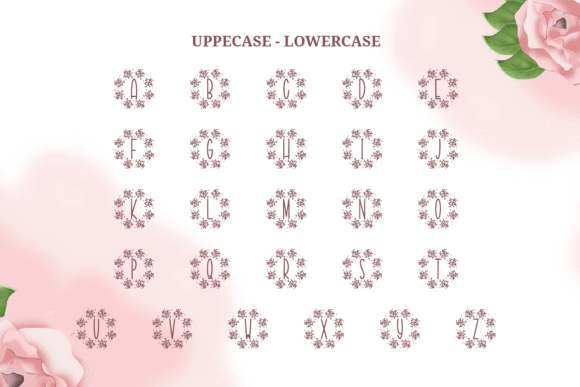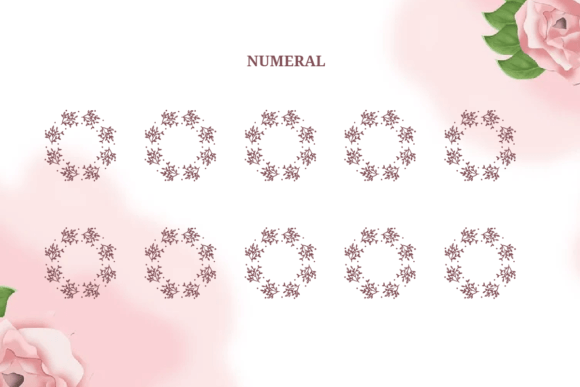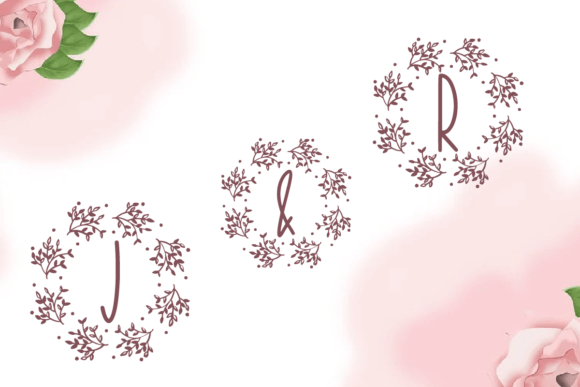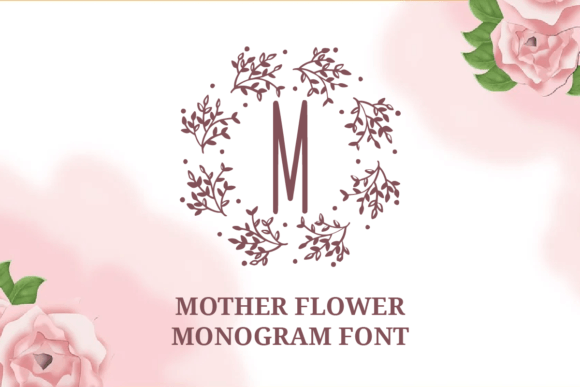
Introduction to Mother Flower Monogram Font
Introducing the Mother Flower Monogram font, which is a decorative monogram style font decorated with a romantic floral wreath circle frame.
This font can enhance your creative projects such as logos, bridal, invitations, branding, crafts, stickers, labels, earrings, key chains, engagement, decorations, and many other creative ideas .
Key Features of Mother Flower Monogram Font